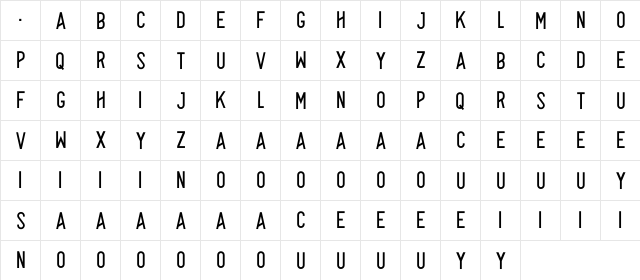
Alpha Medium Regular
| Designer | Callum Finn |
Design Context for Alpha Medium Typeface
Alpha Medium takes a measured approach to typography — its balanced proportions and neutral character make it a reliable workhorse for both digital and print work.